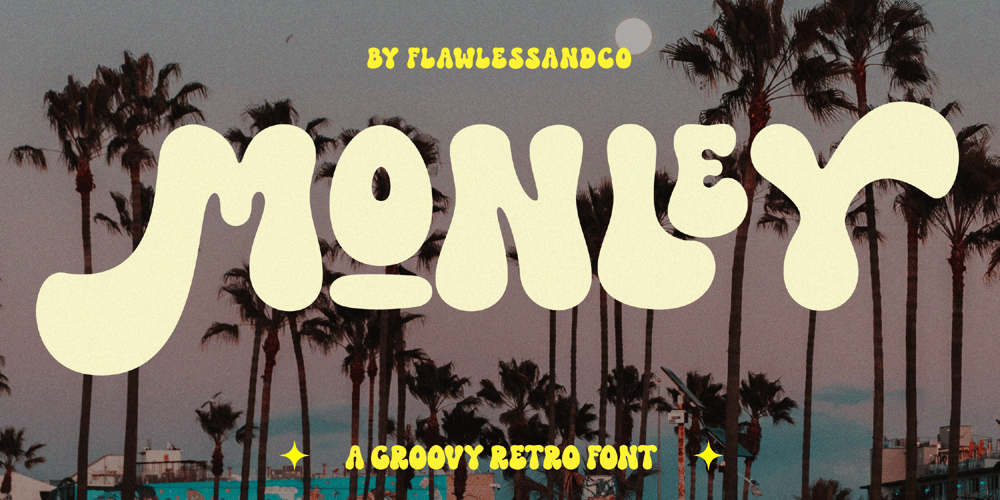
Monley Font Family was designed by Achmad Yani and published by Flawlessandco. Monley contains 2 styles and family package options. Monley is a groovy retro font in a bold design, so it fits any retro design project.There’s a few connected letters and also alternate characters suitable for any graphic designs such as branding materials, t-shirt, print, business cards, logo, poster, photography, quotes, etc.This font has multilingual support, and besides uppercase A-Z and lowercase a-z, it contains alternate characters, numbers 0-9, and punctuation.If you need help, just write me!